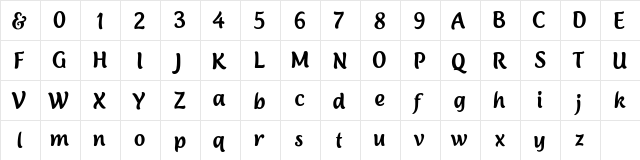
Lambola Regular
| Designer | Anthonie Van Hayu |
Design Context for Lambola Typeface
Lambola takes a measured approach to typography — its balanced proportions and neutral character make it a reliable workhorse for both digital and print work.